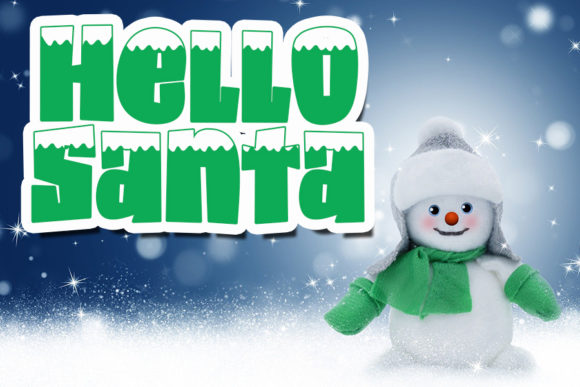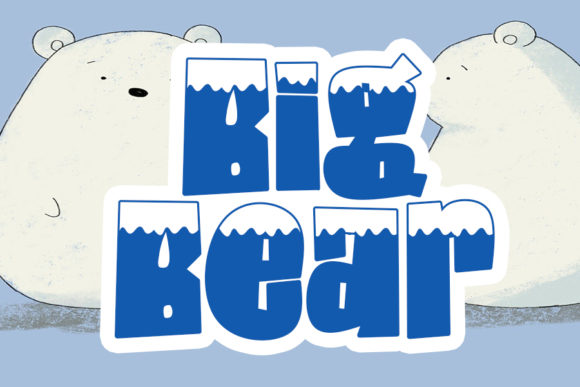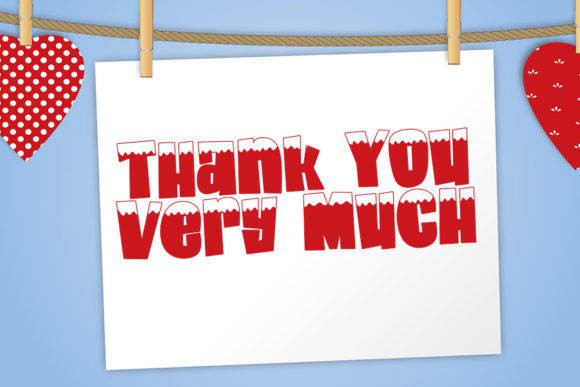
Introduction to Snow Cool Font Font
Fonts play a crucial role in design, and the Snow Cool Font font is a typeface that brings both character and versatility to any project. Whether you’re working on a branding project, a website, or a print design, the Snow Cool Font font offers a unique style that can elevate your work.
Snow Cool is a bold and thick lettered display font.
Its friendly feel makes this font incredibly versatile, fitting a wide range of contexts Add it to your creative ideas and notice how it makes them stand out.
Key Features of Snow Cool Font Font
Why Choose Snow Cool Font Font?
The Snow Cool Font font is more than just a typeface – it’s a design tool that helps you communicate your message with style and clarity. Its unique character set and versatile design make it suitable for a wide range of applications, from elegant invitations to bold headlines.
With its carefully crafted letterforms and balanced proportions, the Snow Cool Font font ensures readability and visual appeal across all mediums.
What makes Snow Cool Font font special?
The Snow Cool Font font stands out with its unique design, exceptional readability, and versatility across various design applications.